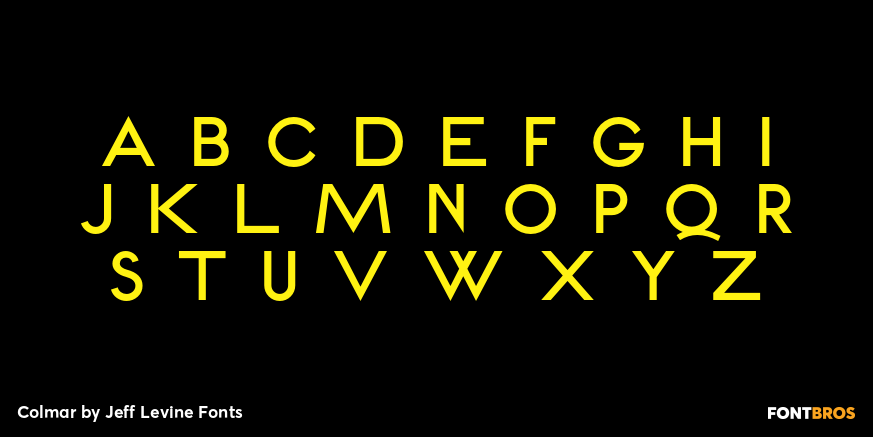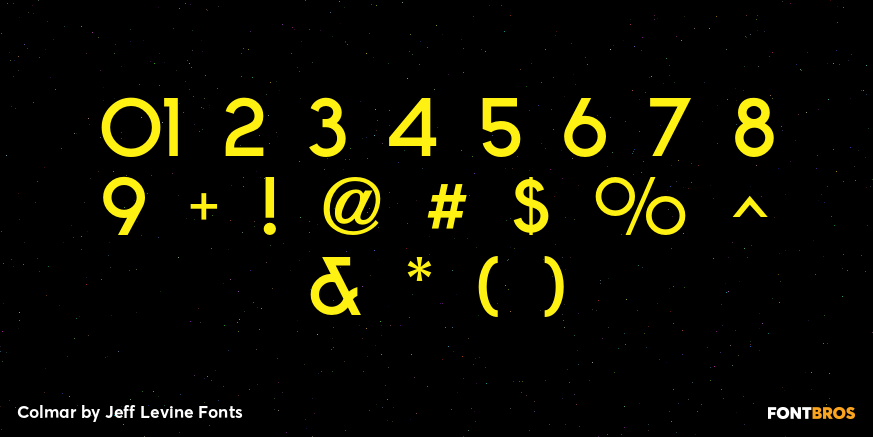
Colmar
French Art Deco lettering found within the pages of the 1934 publication L'Art du Tracé Rationnel de la Lettre (roughly translated to “The Rational Path Art of the Letter”) have provided a number of designs well-suited for digital revival.
A hand lettered sans with varying character widths was the basis for Colmar JNL, which is available in both regular and oblique versions.
As the source of the lettering design was a French publication, the typeface is named for the city of Colmar, which (according to Wikipedia) is the third-largest commune of the Alsace region in north-eastern France.